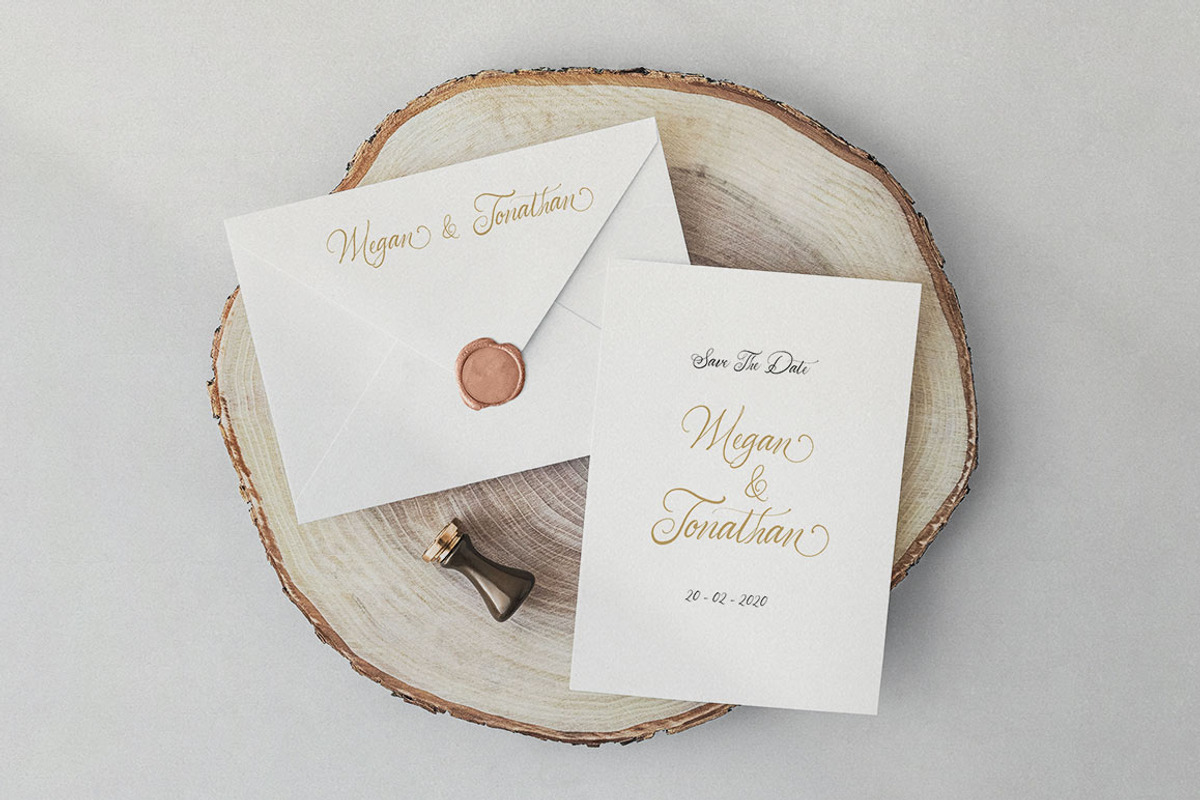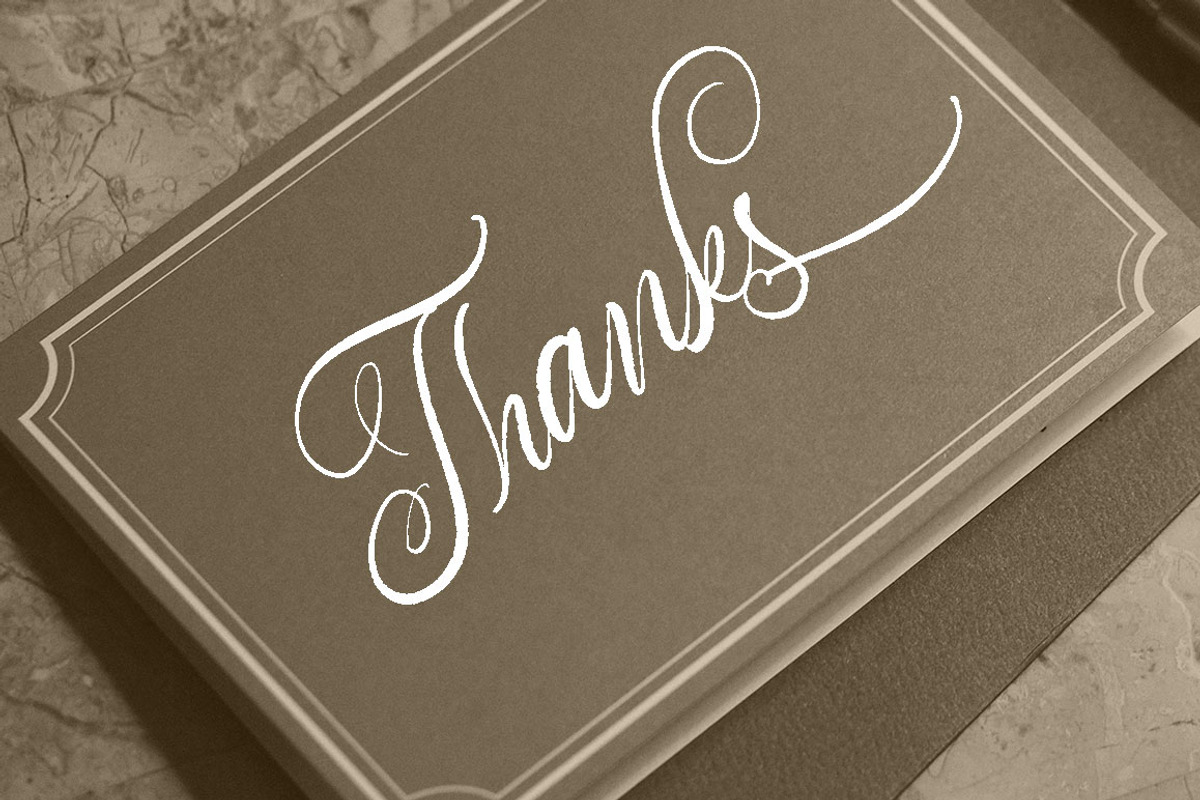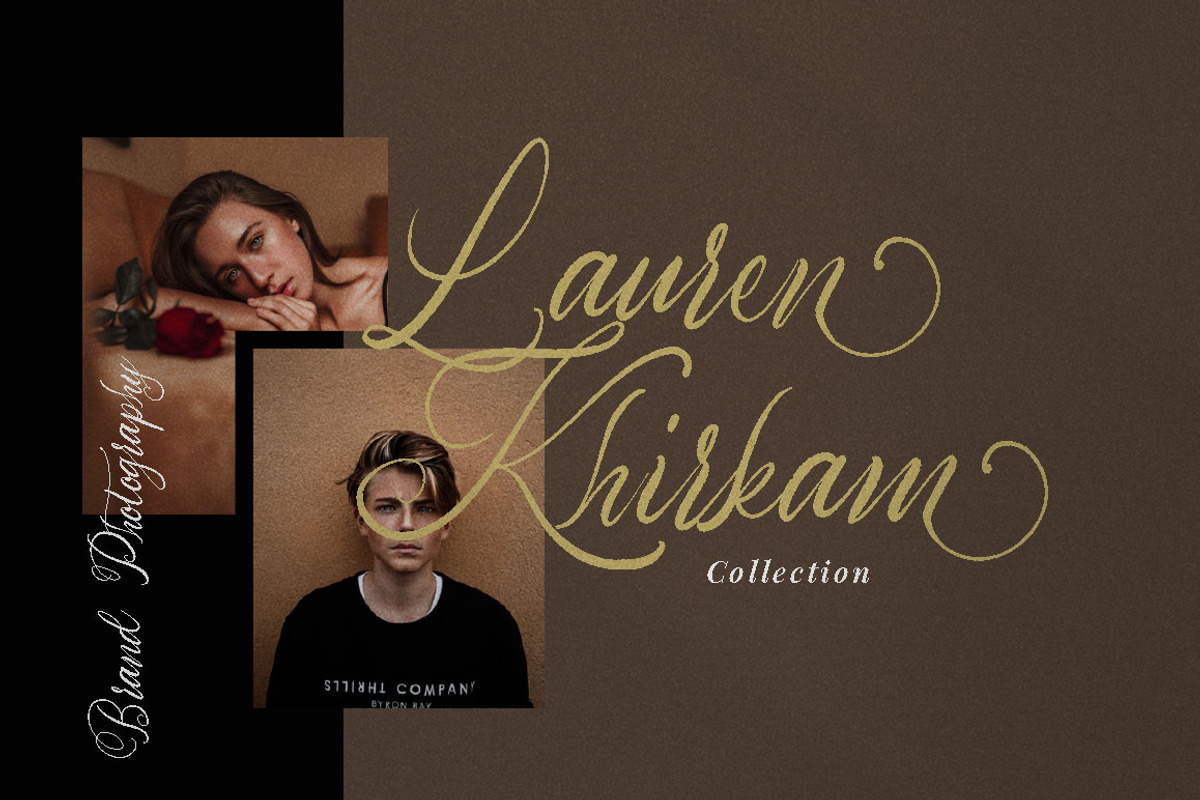
Adolle Bright - Modern Calligraphy
Adolle Bright - a new fresh & modern script with a calligraphy style, a dancing baseline! So beautiful on invitation like greeting cards, branding materials, business cards, quotes, posters, and more!
Adolle Bright come with more Alternative and more Ligature. The alternative characters were divided into several Open Type features such as Stylistic Sets, Stylistic Alternates and Ligature. The Open Type features can be accessed by using Open Type savvy programs such as Adobe Illustrator, Adobe InDesign, Adobe Photoshop Corel Draw X version, And Microsoft Word. And this Font has given PUA unicode (specially coded fonts). so that all the alternate characters can easily be accessed in full by a craftsman or designer